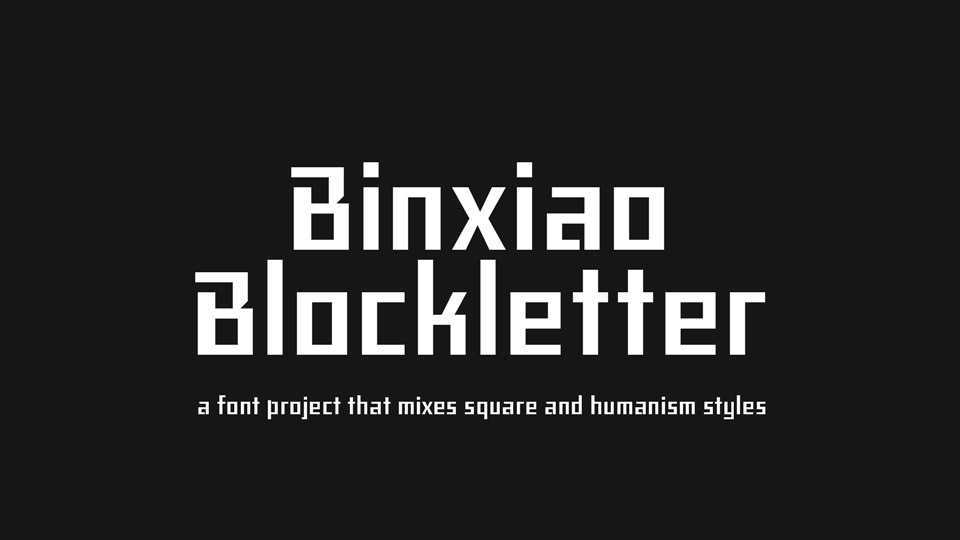
Download Binxiao Blockletter font, a typography project that mixes square and humanism styles. Binxiao Blockletter inspired by an atmosphere similar to medieval European Bible books but remaining feeling of atheism, modern aesthetics.